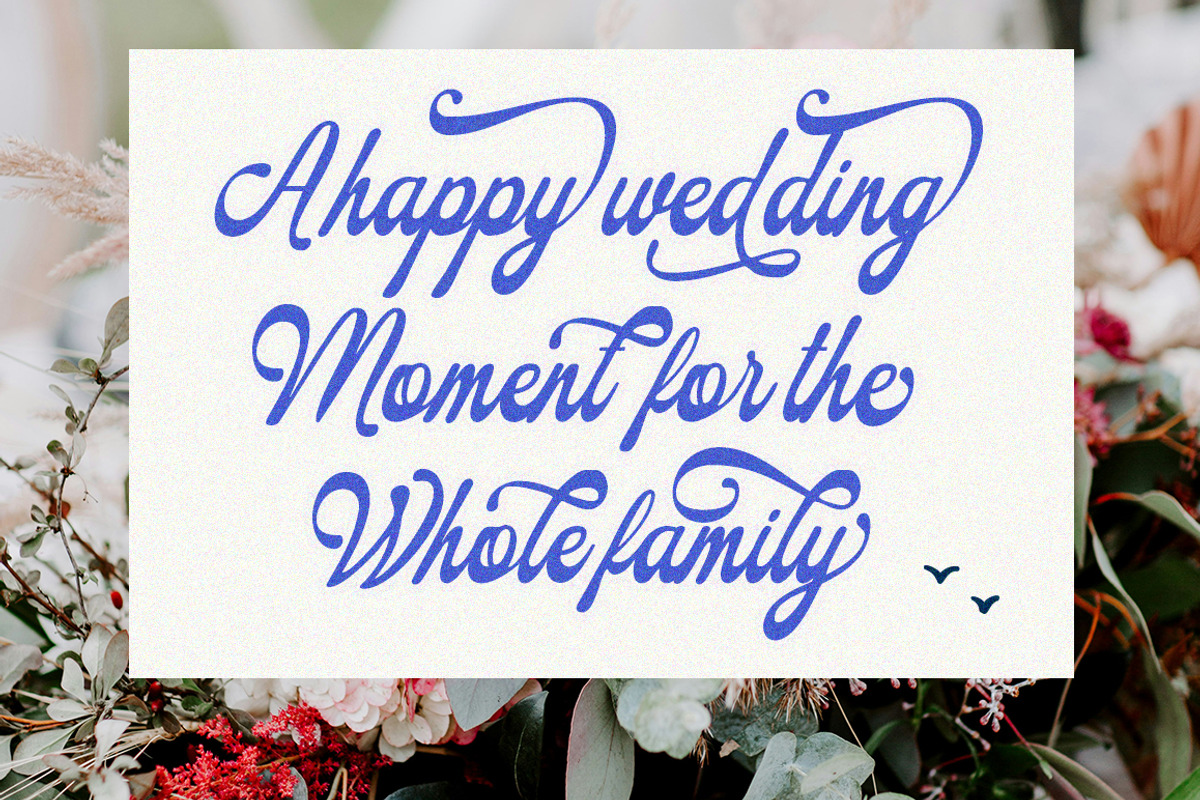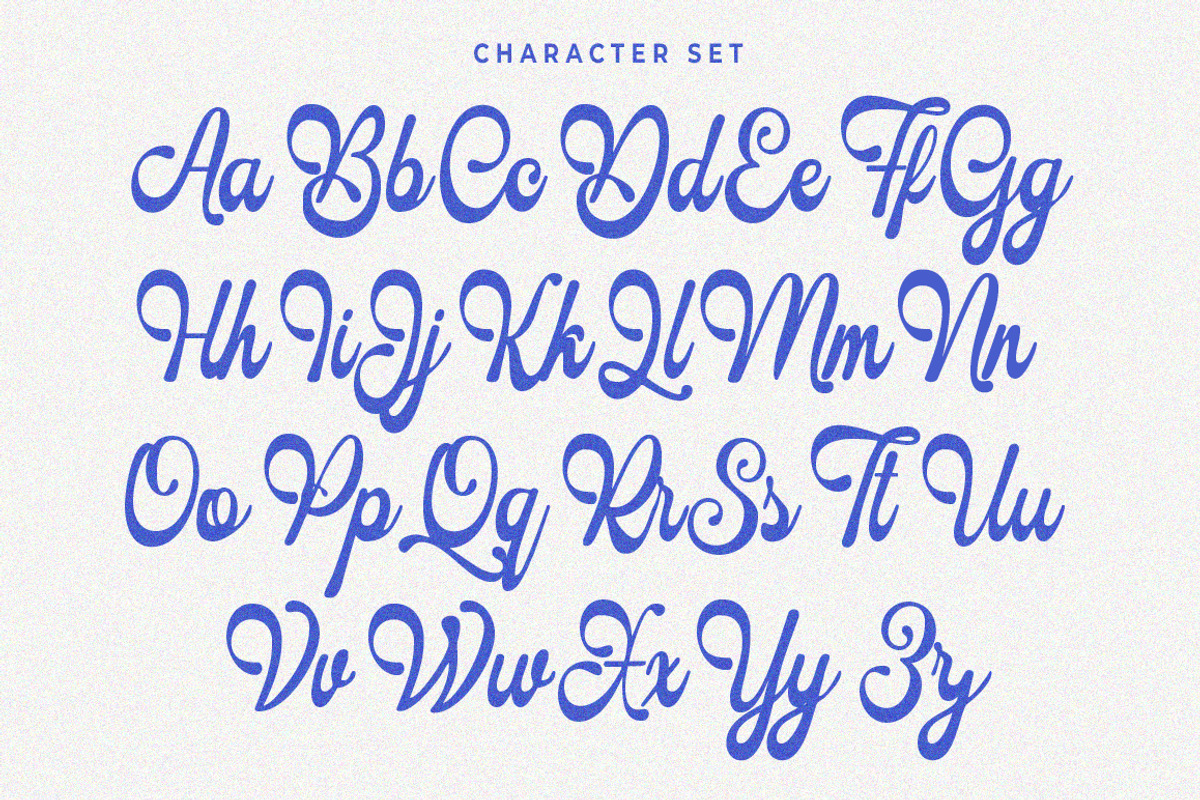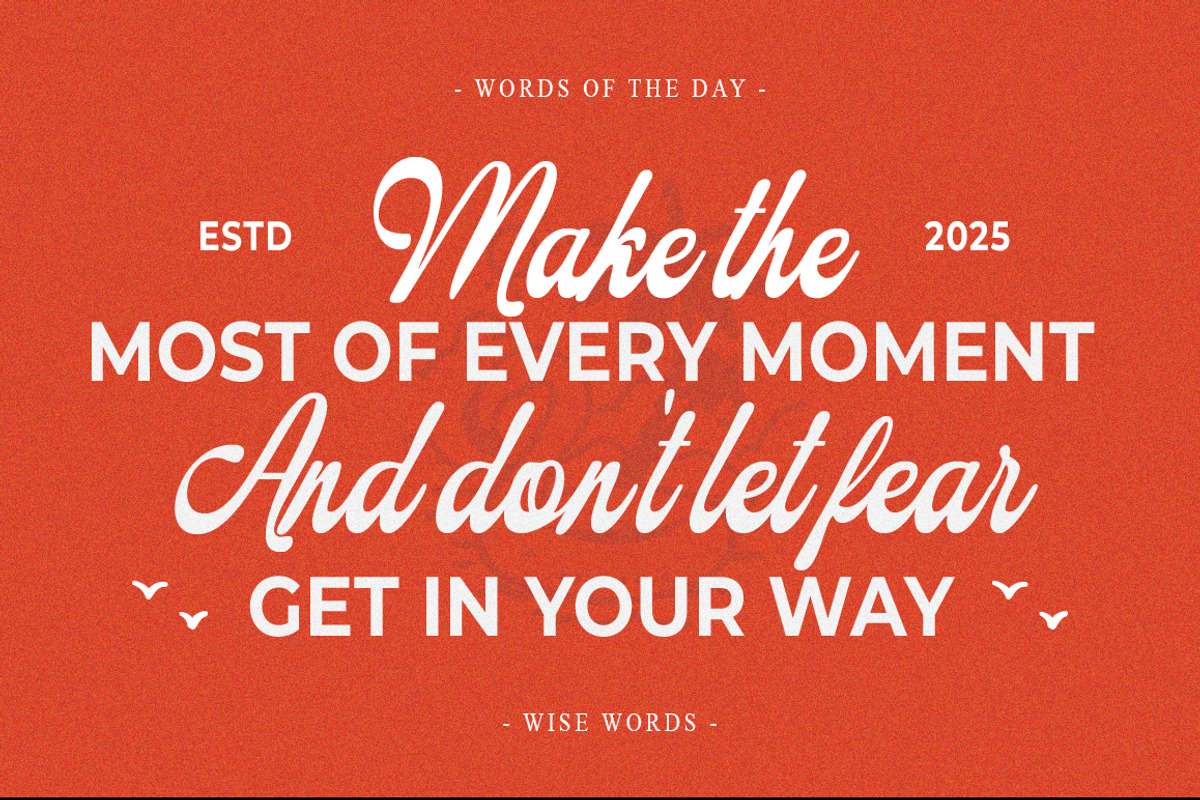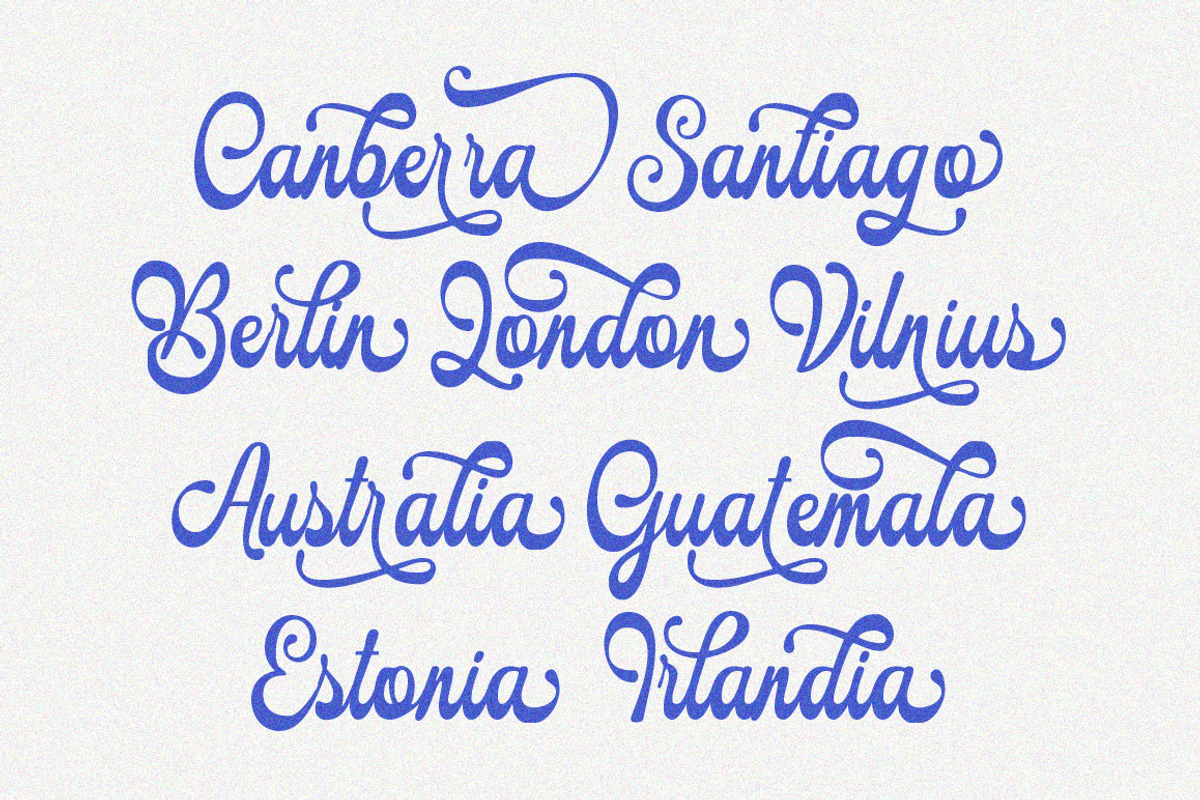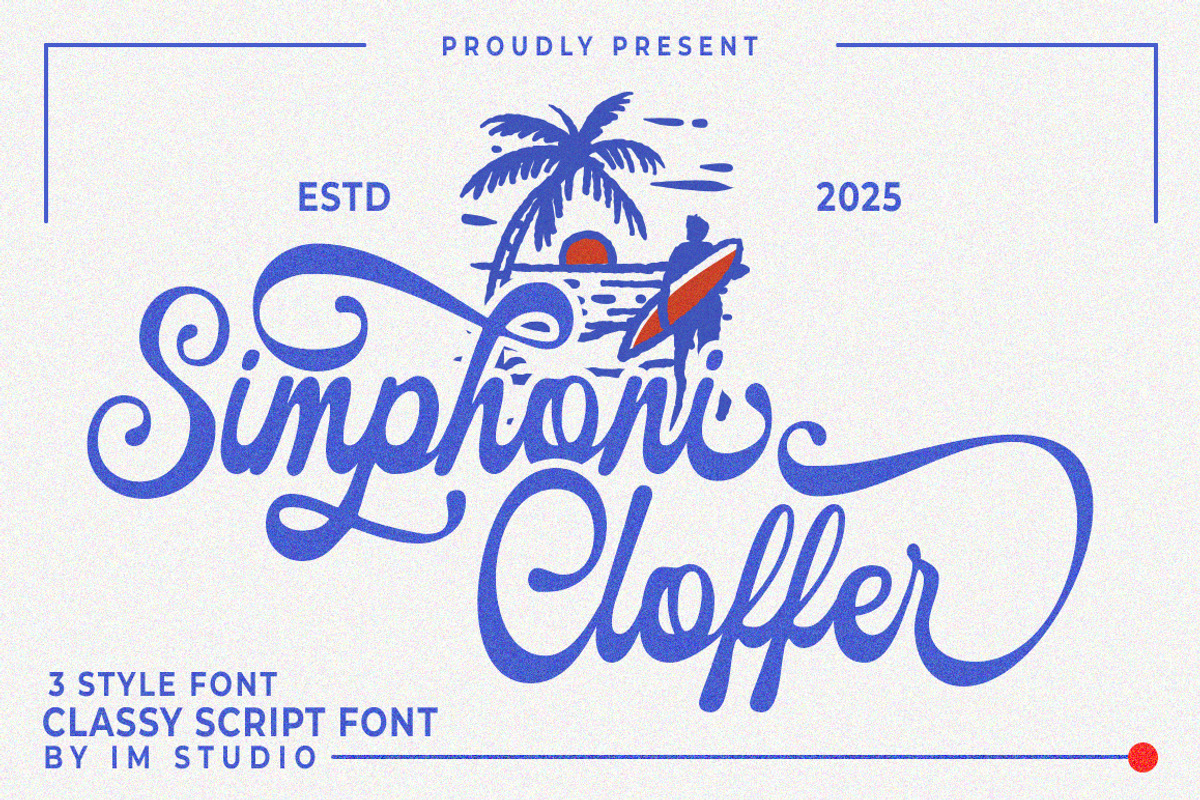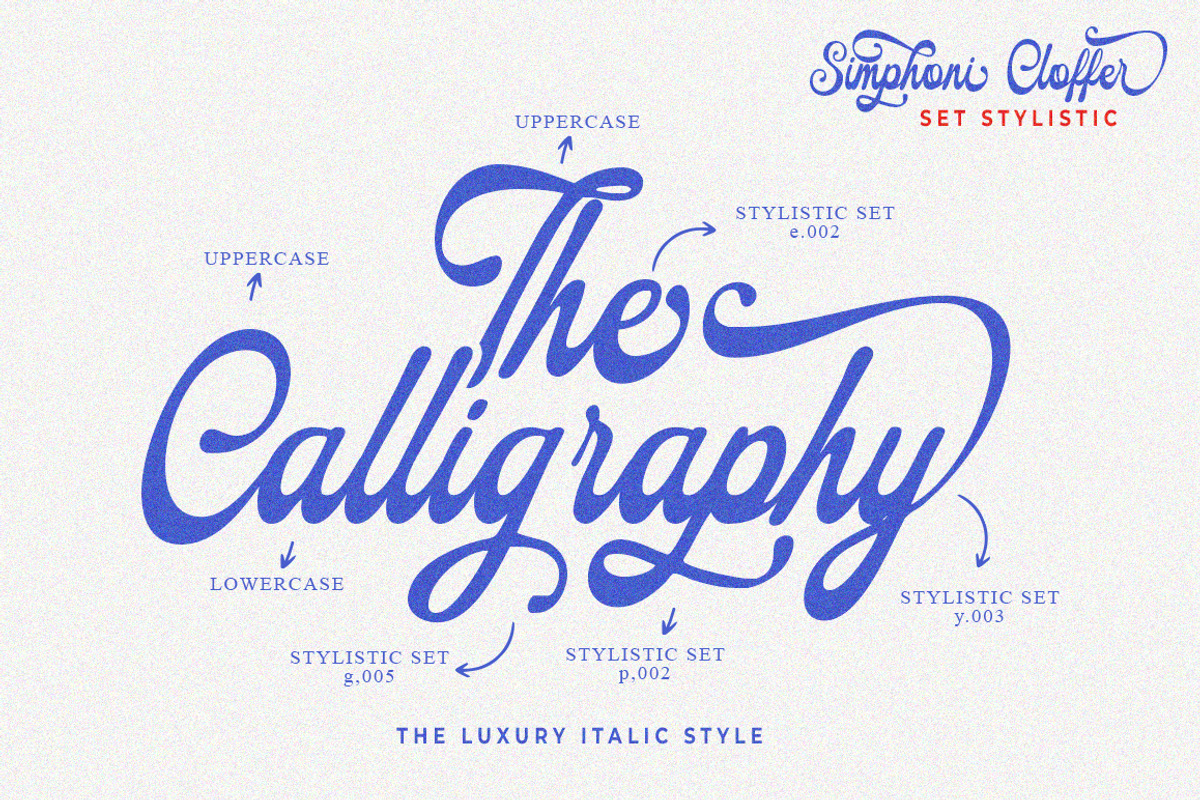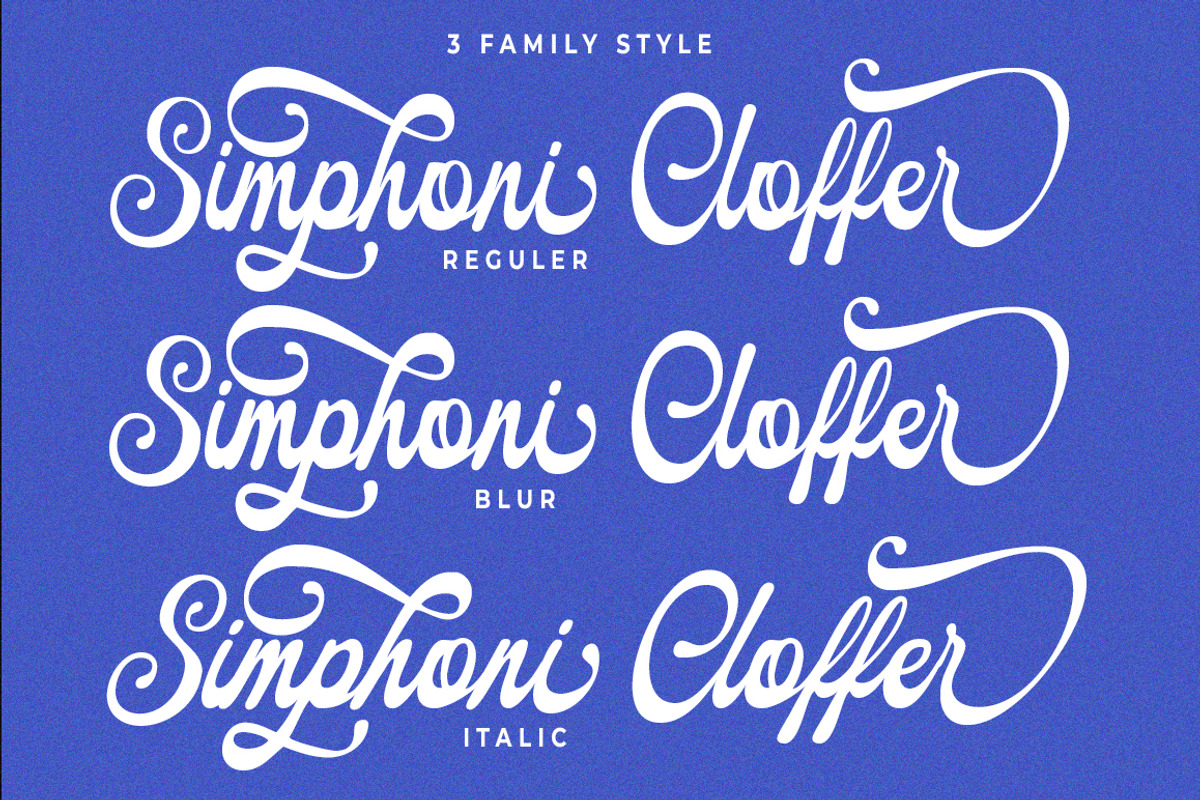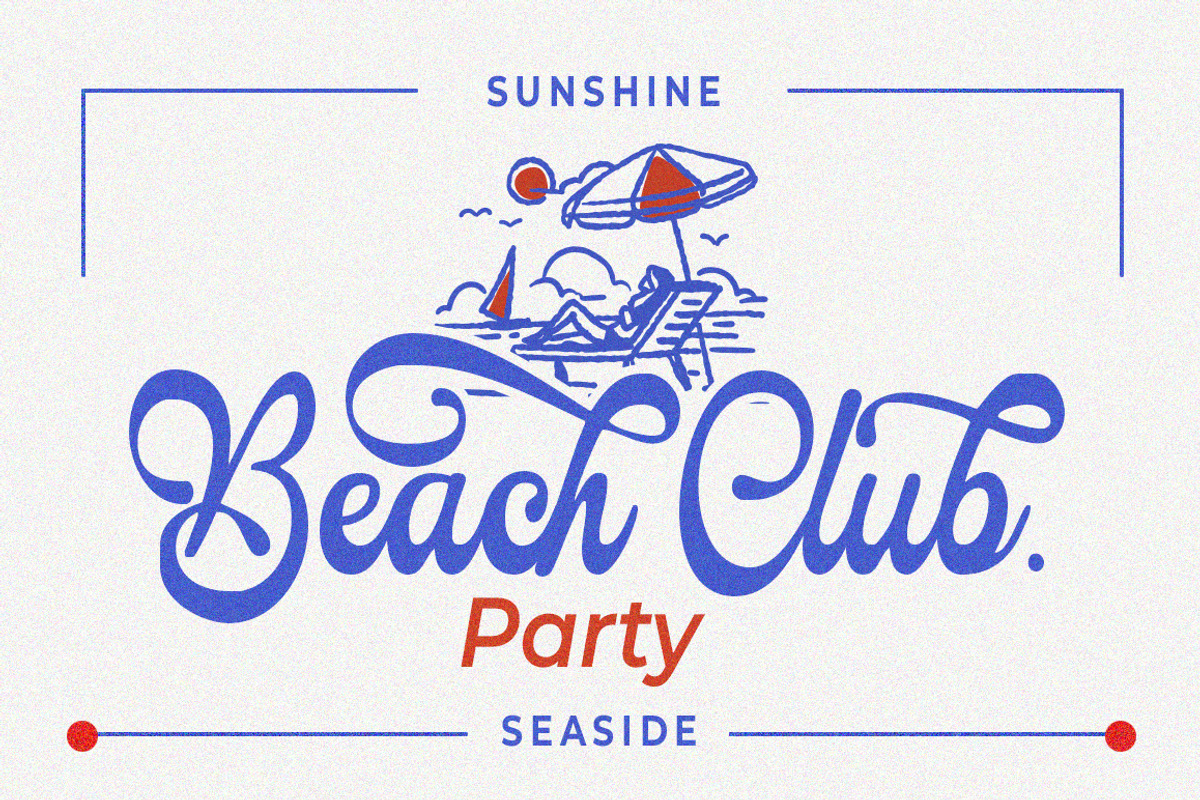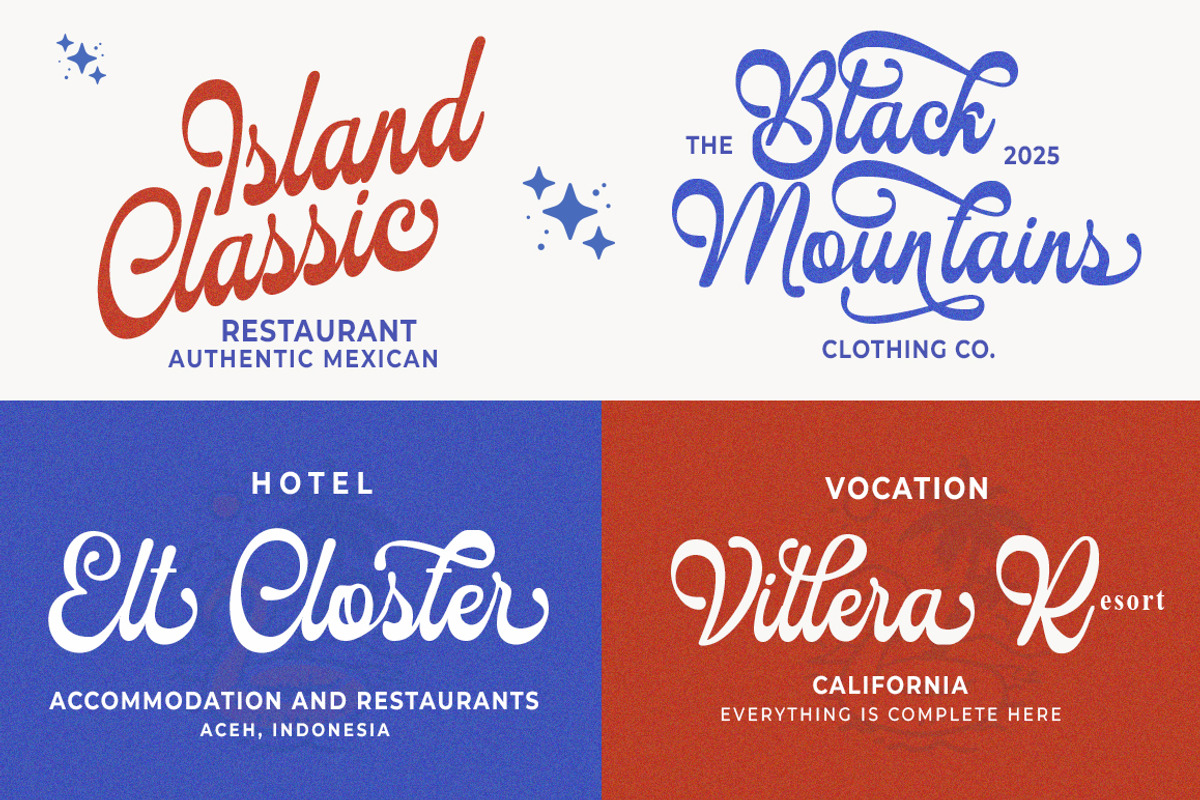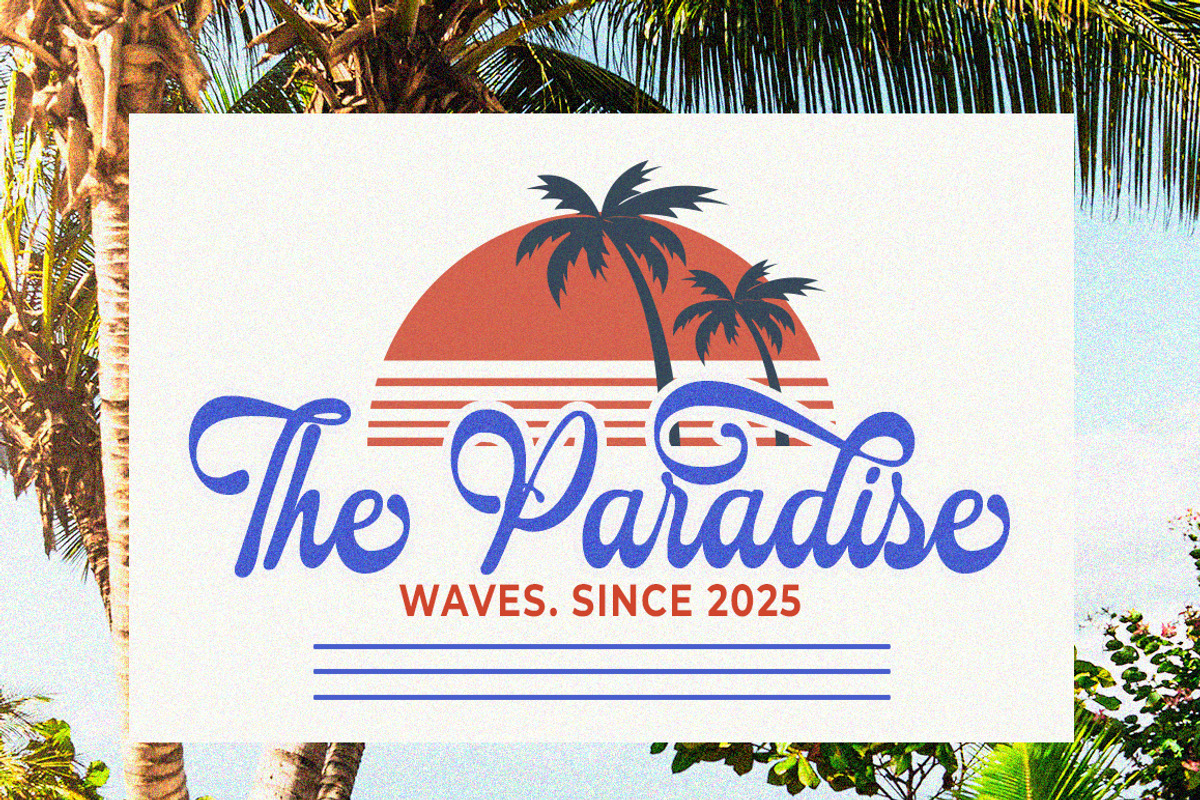
Simphoni Cloffer
Simphoni Cloffer is a timeless yet modern script font with 3 styles, inspired by the elegance of classic handwriting found in vintage books. Designed with harmonious flows and gentle curves, this font offers a beautiful balance between tradition and contemporary charm.
Equipped with style sets, contextual alternates, subtle ligatures, and comprehensive multilingual support, Simphoni Cloffer adds a touch of sophistication to any design project—making it a perfect choice for logos, quotes, invitations, greeting cards, product packaging, letterheads, apparel, web design, magazines, books, and more.
Total Glyphs: 315 (Uppercase & Lowercase, Punctuation, Symbols)
Extras: Contextual Alternates, 85+ Style Sets, Elegant Ligatures